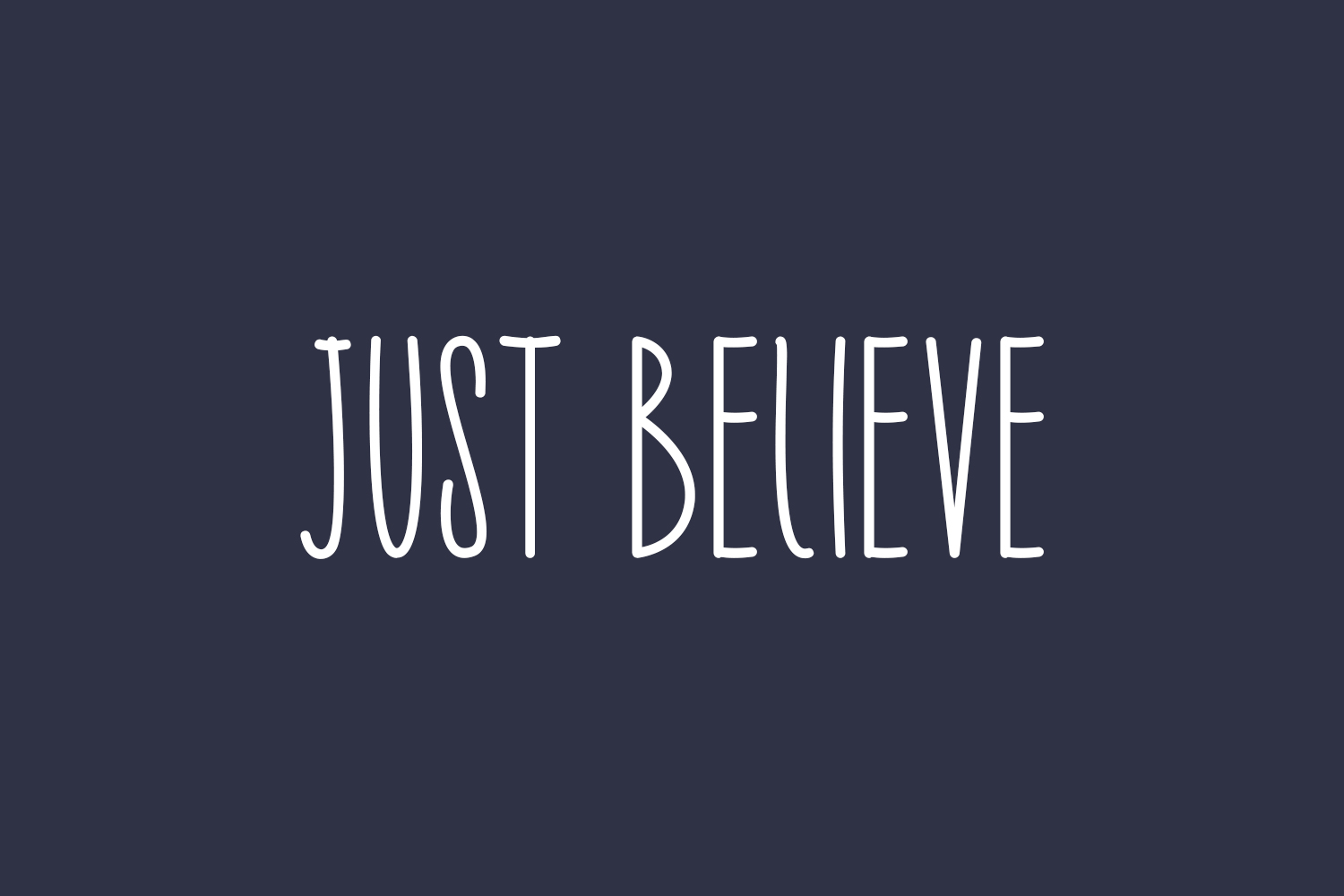
Introducing Just Believe Free Font, an enchanting, sleek, and captivating handwritten typeface. This font exudes a delightful charm, making it perfect for a wide range of applications such as quotes, branding, books, logos, social media posts, love quotes, watermarks, invitations, and beyond. Its unique and playful design is sure to leave a lasting impression. Free Font is free for personal use only. Please purchase the full version for commercial use.
Designed by Bluestype Studio